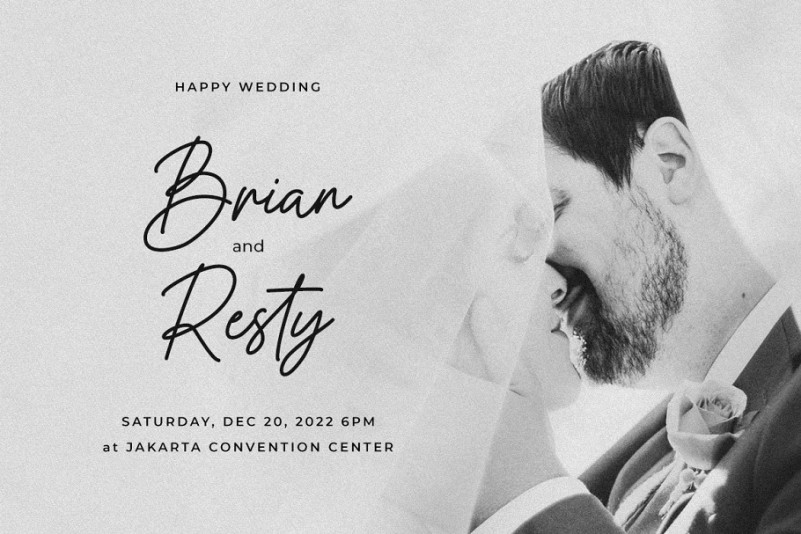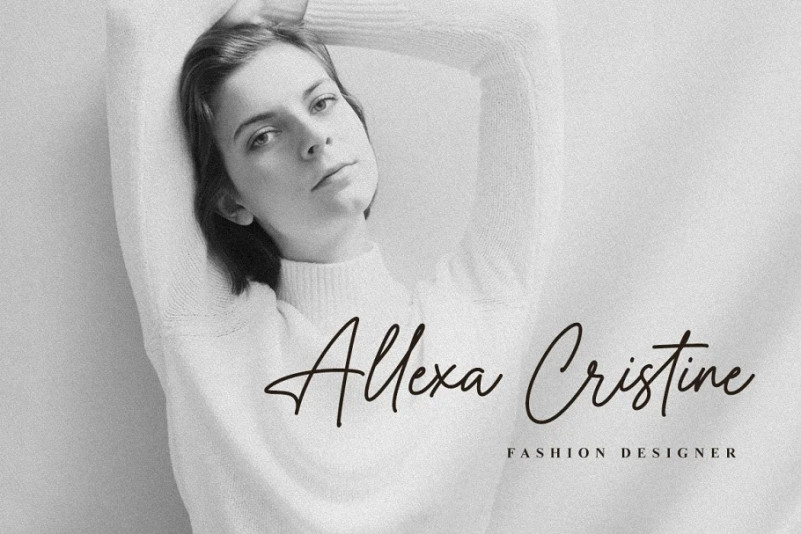
The Chairman Handwritten Font is a modern script font with a casual and elegant style, inspired by modern design trends, so that it can make your designs stand out. It looks stunning on wedding invitations, thank you cards, quotes, greeting cards, logos, business cards, magazine, marketing materials and every other design which needs a handwritten touch. Fall in love with its incredibly distinct and timeless style and use it to create spectacular designs!